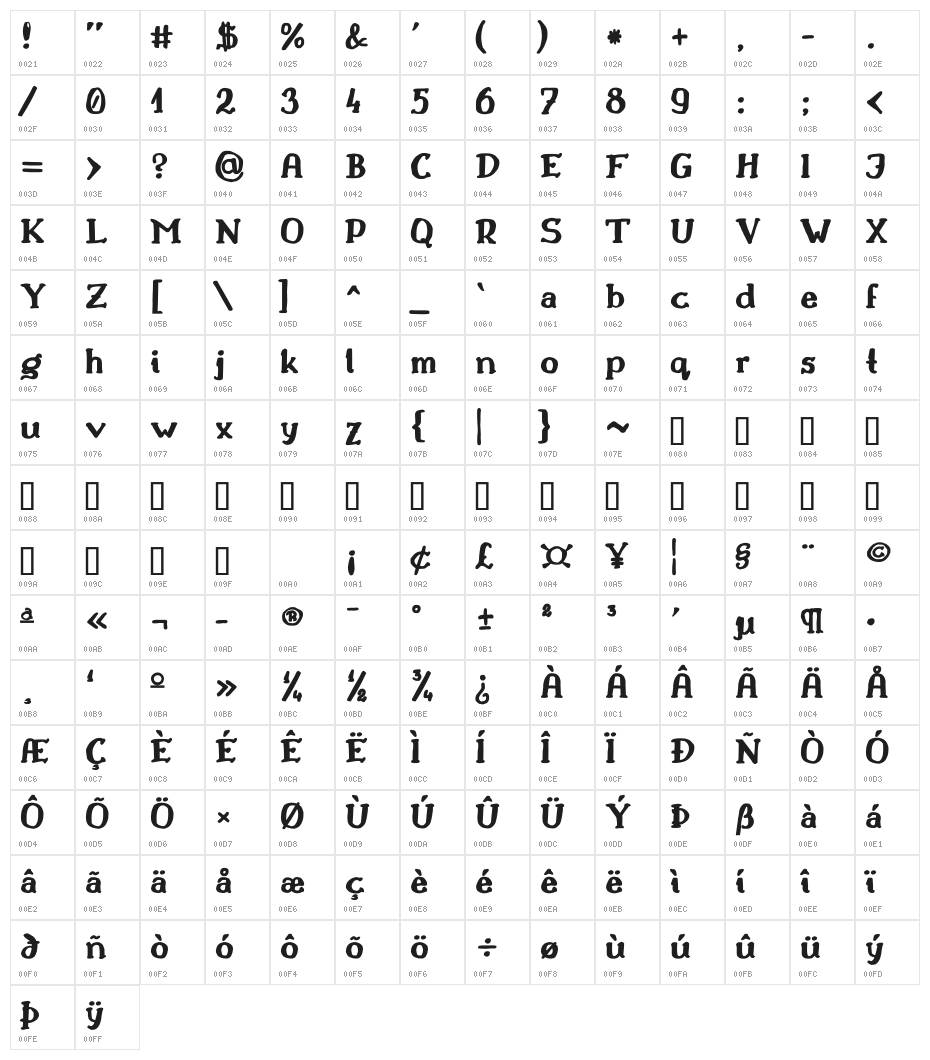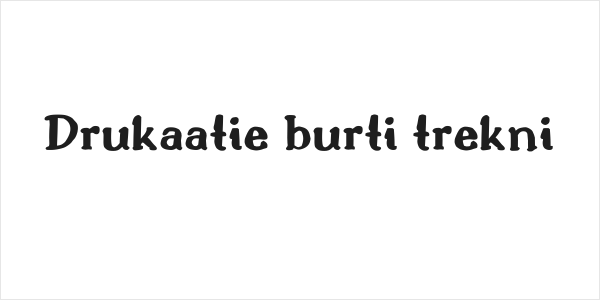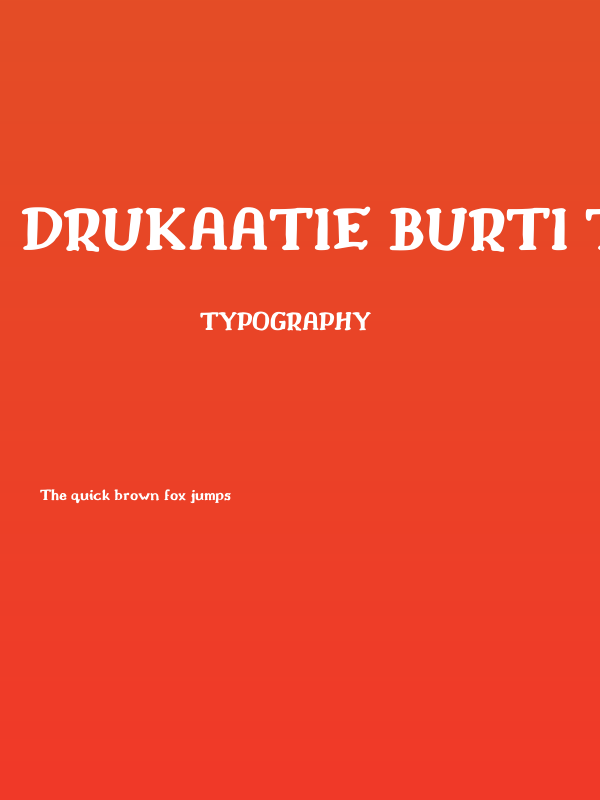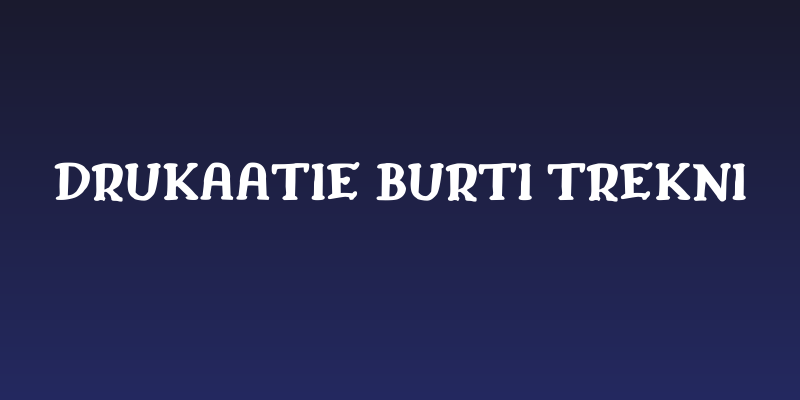
Drukaatie burti trekni Font
Drukaatie burti trekni Description
This font features a bold and playful design with a hand-drawn aesthetic. The characters are slightly irregular, giving it a whimsical and artistic feel. The strokes are thick and rounded, which adds to its boldness and makes it stand out. The uppercase and lowercase letters maintain a consistent style, with a slightly condensed appearance. The numbers and special characters follow the same playful and bold design, ensuring uniformity across all elements. This font is ideal for projects that require a fun and engaging look.
| Overall Style | Playful, Artistic |
| Proposed Projects | Ideal for children's books, playful branding, posters, and creative projects that require a whimsical touch. |